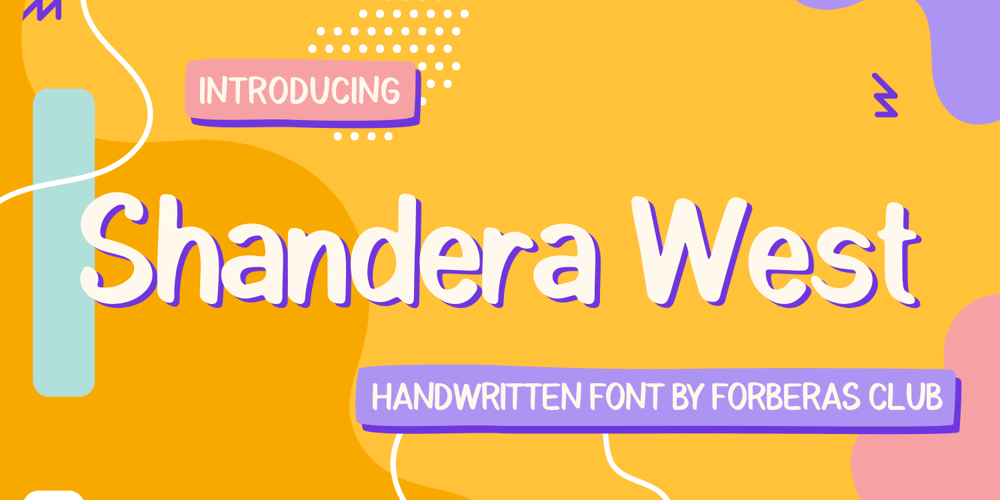
Shandera West
Shandera West font
Shandera West Font Family was designed by ANGGI HERMAWAN and published by Forberas Club. Shandera West contains 1 styles and family package options. Shandera West is handwriting font. This font create for cute, playful, happy, cartoon and many more about funny.